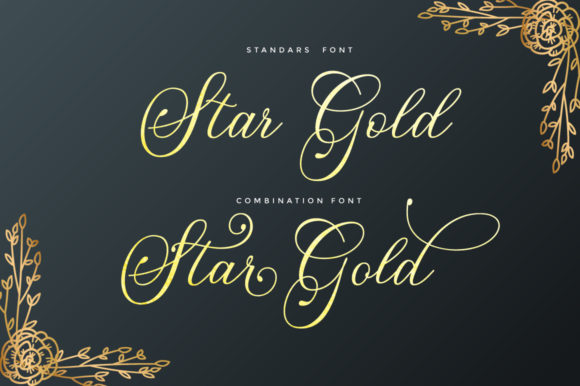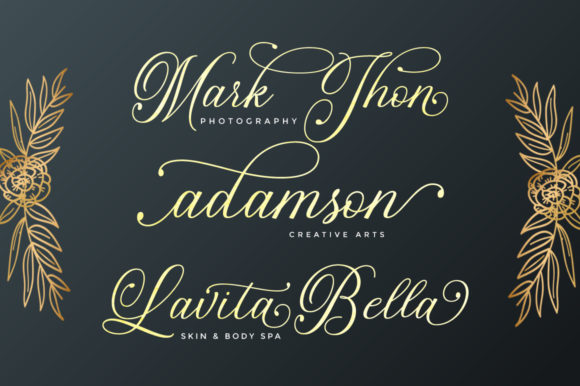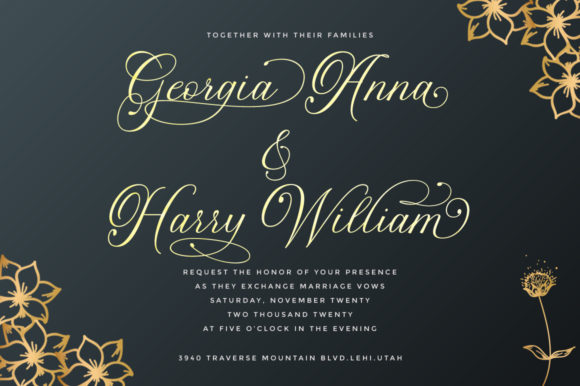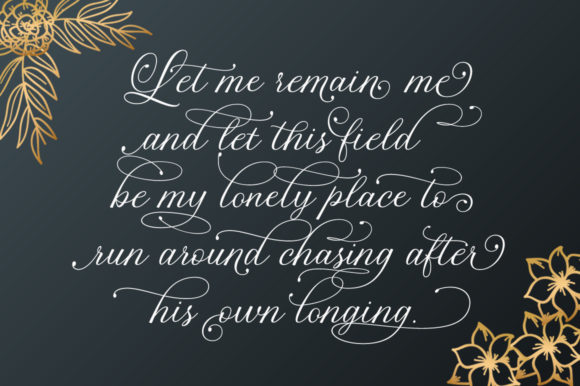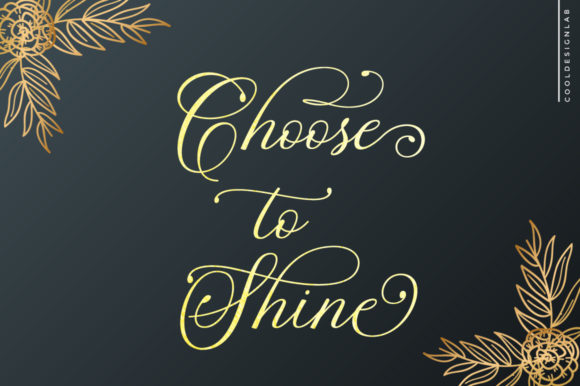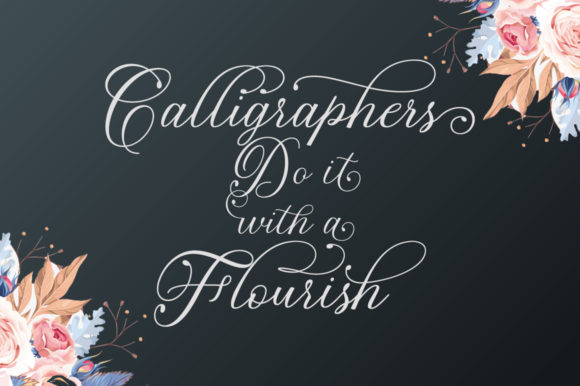
Discover the Elegance of Blackstar Font: A Beautiful Calligraphy Handwriting Font
Are you a designer or crafter looking for a font that can add a touch of elegance and sophistication to your projects? Look no further than the Blackstar Font, a beautiful and interesting calligraphy handwriting font that is sure to capture your heart with its charming appearance.
What is Blackstar Font?
Blackstar Font is a stunning calligraphy handwriting font that is designed to bring a touch of luxury and refinement to any project. With its fluid strokes and elegant letterforms, this font is perfect for a wide range of applications, from wedding invitations and stationery to branding and advertising.
Key Features of Blackstar Font
- Beautiful Calligraphy Handwriting: Blackstar Font features beautiful, flowing script letterforms that are reminiscent of traditional calligraphy.
- Elegant and Sophisticated: The font’s elegant and sophisticated design makes it perfect for high-end branding, wedding invitations, and other luxury applications.
- Highly Readable: Despite its ornate design, Blackstar Font is highly readable, making it suitable for use in a wide range of applications, from body text to headlines.
- Versatile: Blackstar Font can be used in a variety of contexts, from digital media to print materials, and can be easily paired with other fonts to create a unique look.
Who Can Benefit from Using Blackstar Font?
Blackstar Font is a versatile font that can be used by a wide range of designers and crafters, including:
- Wedding Designers: Blackstar Font is perfect for creating beautiful wedding invitations, stationery, and other wedding-related materials.
- Graphic Designers: The font’s elegant design makes it suitable for use in a wide range of graphic design applications, from branding and advertising to packaging and marketing materials.
- Crafters: Blackstar Font can be used by crafters to create beautiful handmade cards, gift tags, and other paper crafts.
- Stationery Designers: The font’s elegant design makes it perfect for creating beautiful stationery, including letterheads, notebooks, and journals.
- Pair it with Other Fonts: Blackstar Font can be paired with other fonts to create a unique look. Try pairing it with a sans-serif font for a modern look or with a serif font for a more traditional look.
- Use it for Headlines and Titles: Blackstar Font is perfect for use in headlines and titles, where its elegant design can really shine.
- Experiment with Colors: Blackstar Font looks great in a variety of colors, from rich jewel tones to metallic colors. Experiment with different colors to find the one that works best for your project.
In conclusion, Blackstar Font is a beautiful and interesting calligraphy handwriting font that is sure to capture your heart with its charming appearance. With its elegant design, highly readable letterforms, and versatility, this font is perfect for a wide range of designers and crafters. Whether you’re creating wedding invitations, branding materials, or handmade crafts, Blackstar Font is sure to add a touch of elegance and sophistication to your projects.